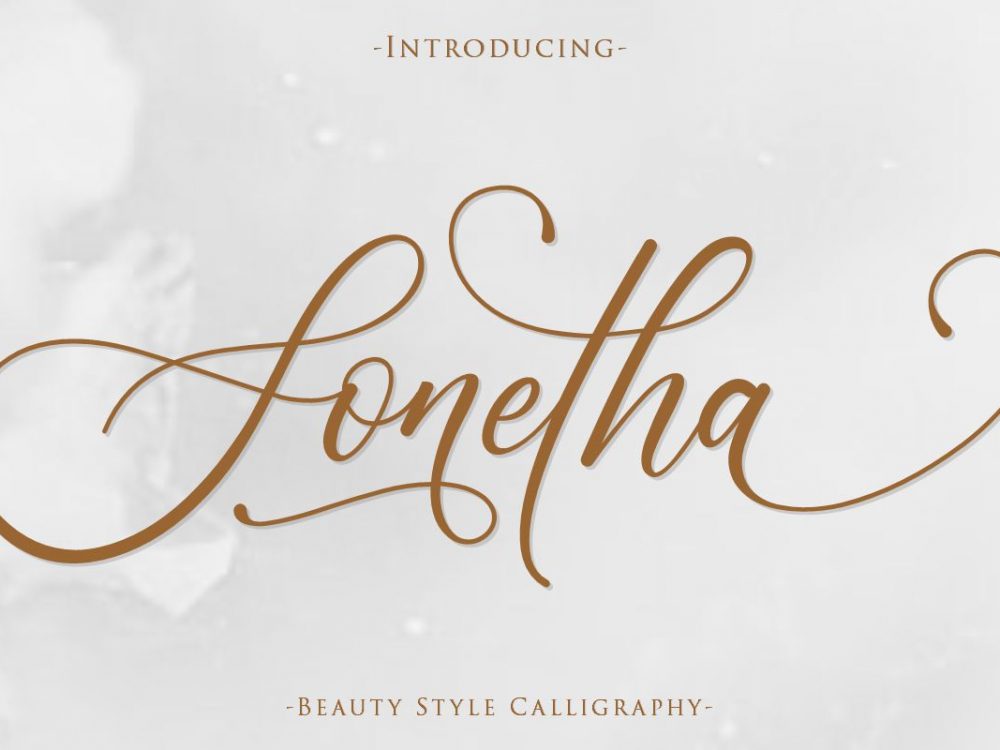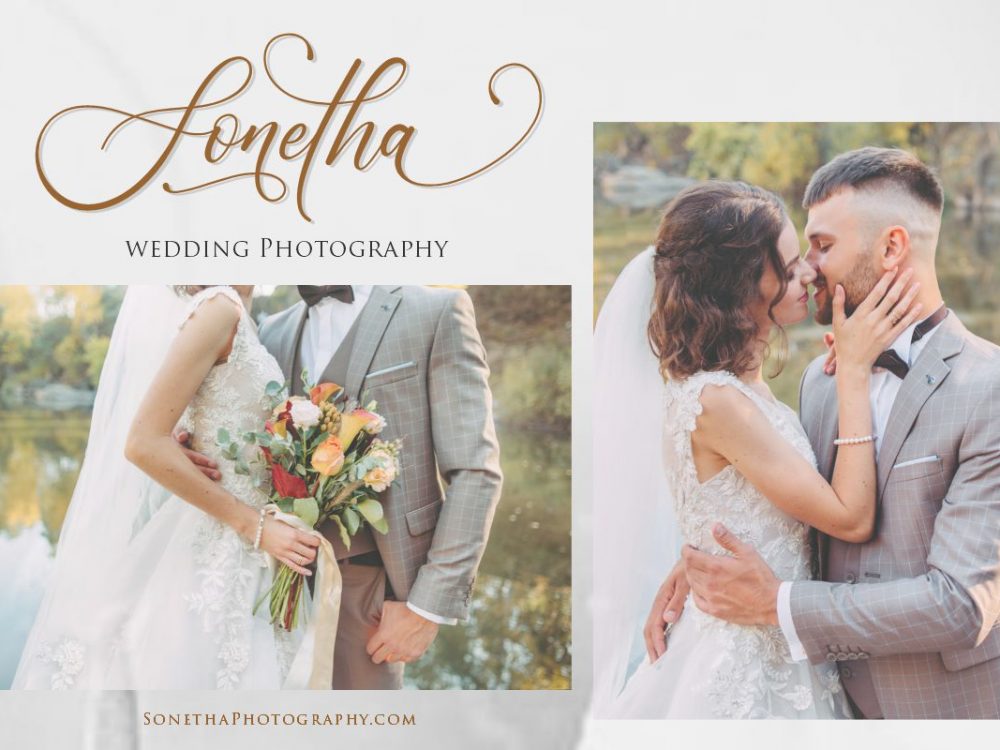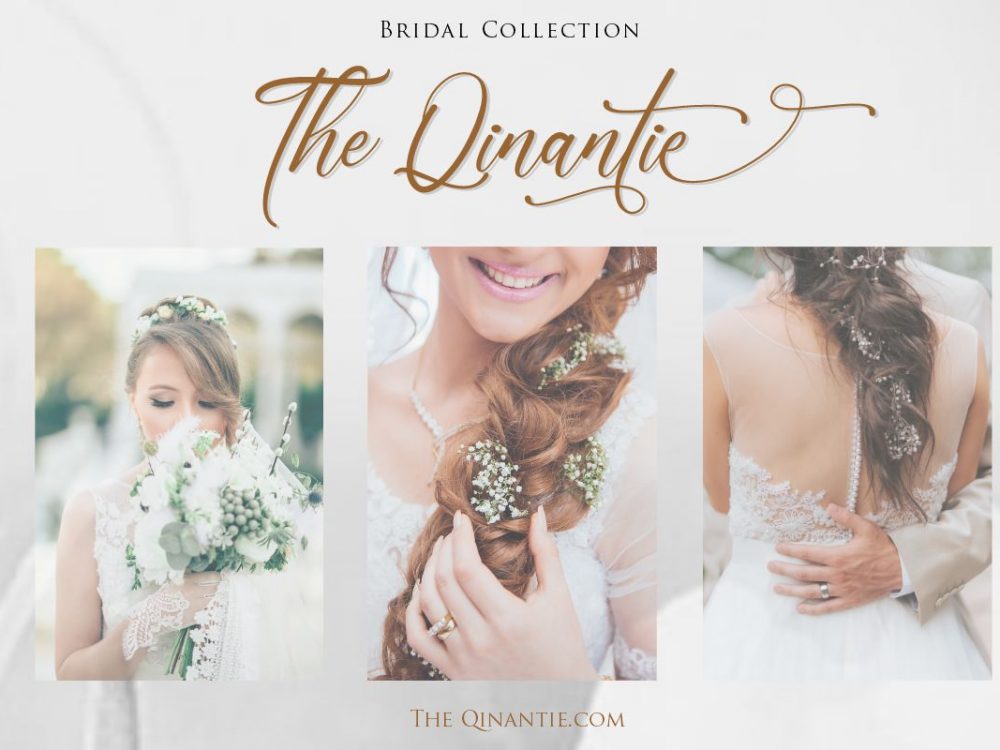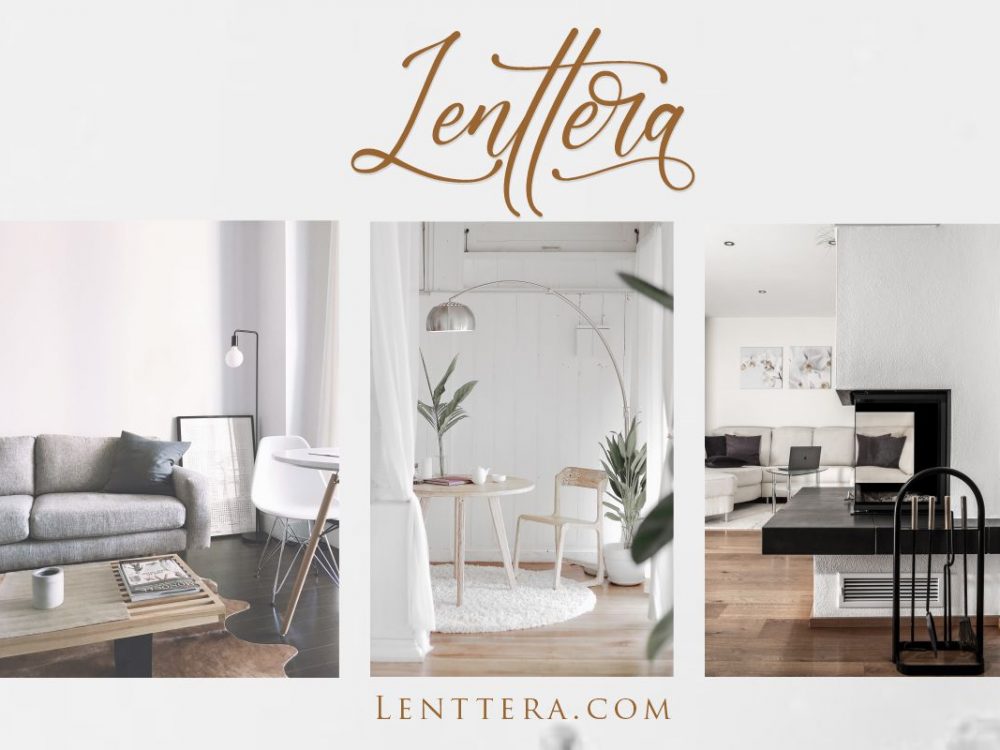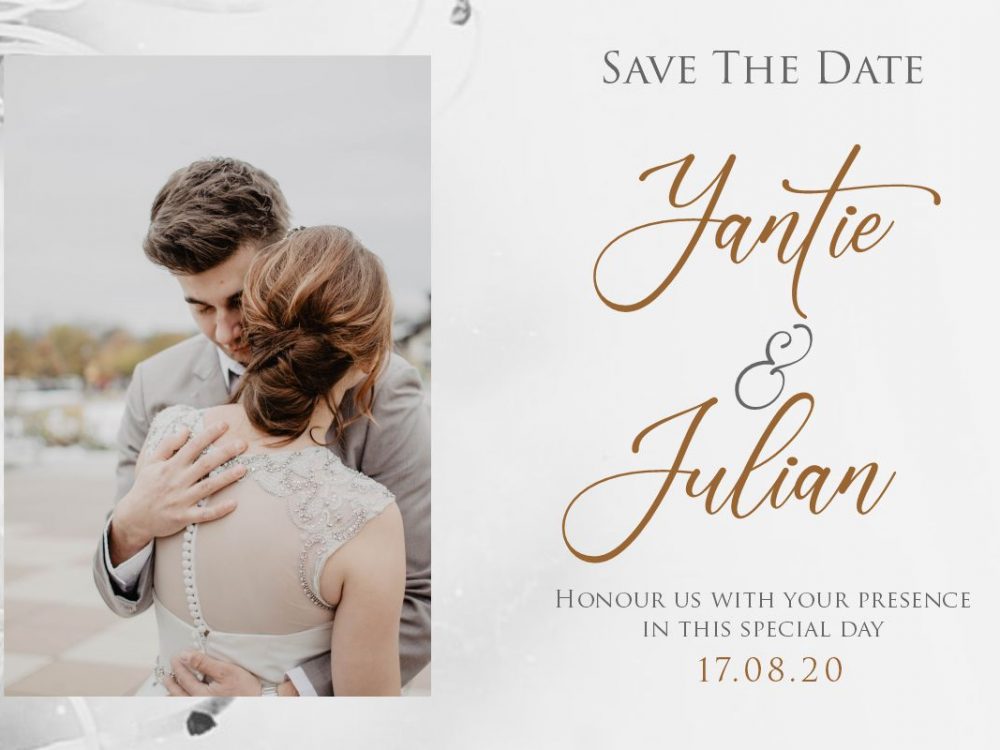
Sonetha Free Font
Sonetha Free Font is an interesting calligraphic font with a modern style. This font is well suited for various design projects that require a scripted calligraphic font. You can use this font to create memorable romantic posters, wedding invitations, greeting cards, branding, flyers, t-shirt and pillow prints, and more. If you like it don’t forget to check out the full version.